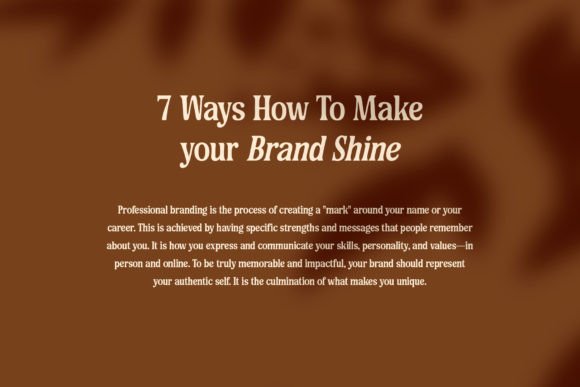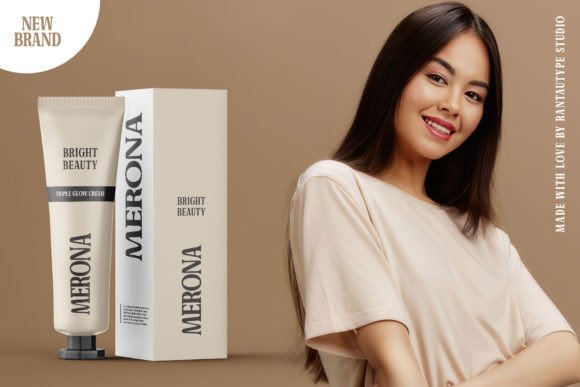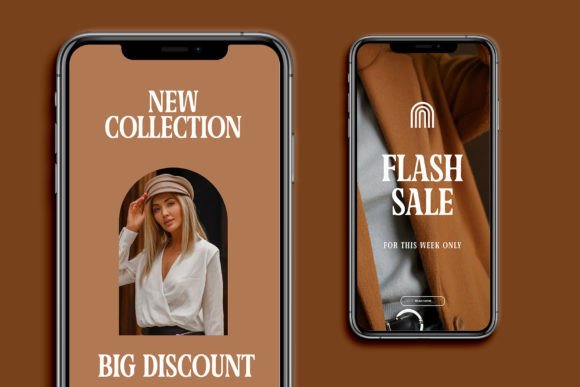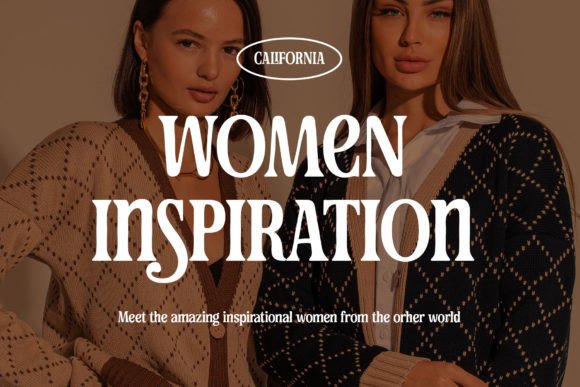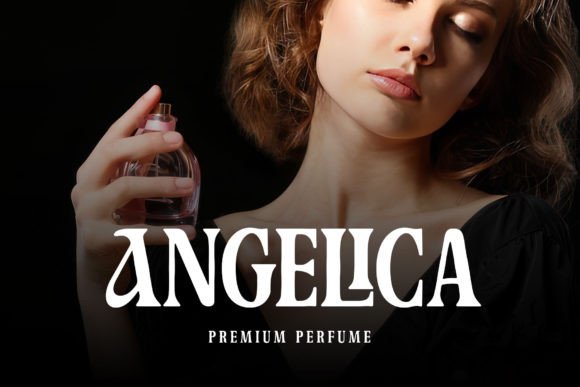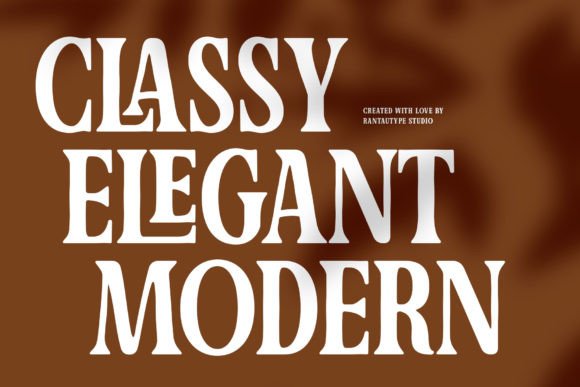
Introduction to Naserra Font
Naserra is an elegant and bold serif font.
Fall in love with its incredibly versatile style and use it to create gorgeous wedding invitations, beautiful stationary art, eye-catching social media posts, and much more .
Key Features of Naserra Font
Naserra Font offers exceptional quality and versatility, making it a valuable addition to your design toolkit. Whether you’re creating for personal projects or commercial use, Naserra Font delivers professional results.